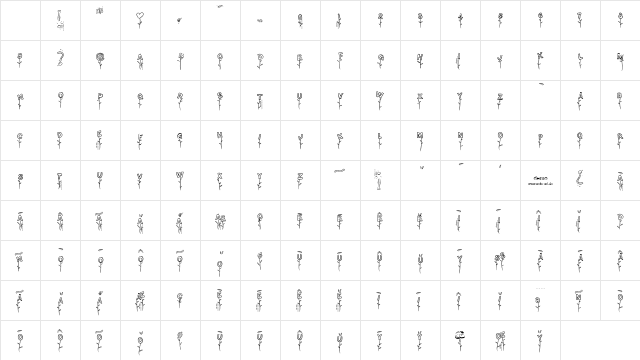
Complete Typo Garden Demo Regular glyph index. Displaying only characters natively supported by Typo Garden Demo Regular font.
Typo Garden Demo is a composed and adaptable typeface that performs quietly and consistently across a wide range of design contexts.